Artistic Printing Creative Papers: Type & Ornament from the Golden Age of Letterpress (For Gift Wrap, Crafting, Decor & more)
From the golden age of letterpress to the birth of digital type, our new series of gift-wrap and craft-paper books transform beloved objects from our collection for use in wrapping, crafting, framing, and decor.
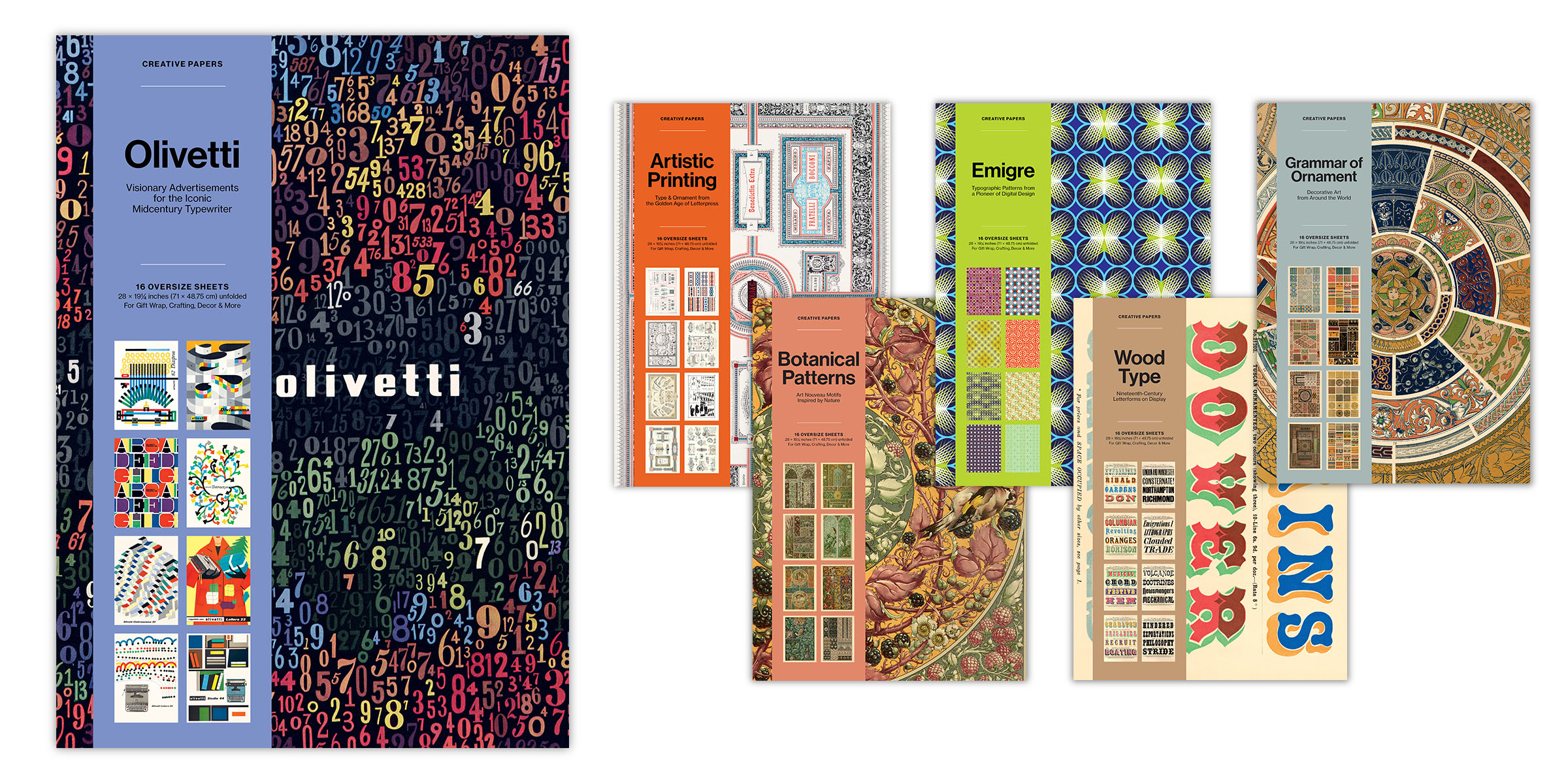
In the nineteenth century, technological innovations allowed for a creative flourishing in print, and letterpress practitioners produced extravagant materials to showcase their craft.
On view in Artistic Printing Creative Papers is a selection from two such dazzling promotions, issued by the famed Italian foundry Nebiolo. Their large-format pages entice with resplendent inks, wide-ranging typefaces, and charming ornaments, such as manicules, silhouettes, fleurons, and ornate borders.
With type rippling across ribbons, stacked in stately friezes, or clustered in decorative vignettes, the sixteen displays here—printed on oversize perforated pages—celebrate the bygone artistry of the industrial era.
Before the twentieth century, the printer and the graphic designer were one and the same: The tasks of type selection, typesetting, and the incorporation of illustrations (known as cuts or clichés) fell to the same individual who inked, ran, and maintained the presses. As commerce grew in the late 1800s, page composition diversified from the straight-forward—simple running text that conveyed the news in a daily or an author’s text in a book—to the marvelous, with glorious full color and dynamic and intricate typesetting. Today, these dazzling efforts, achieved using hand-set metal type and decorative ornaments, are known as artistic printing.
This creative upswell was all to attract the eye of the newly emergent consumer class, who was persuaded by clever print ephemera and advertisements. Sensing economic opportunity, a specialized group of letterpress operators, known as jobbing printers, rapidly expanded their offerings. They were emboldened by the innovations of the Industrial Revolution, such as the standardization of the typographic point system, which enabled greater integration of ornament and type in various sizes; type-casting machines that allowed for more delicate, fine-line designs; fast-drying inks; and the highspeed yet accurate jobbing platen press.
One manufacturer who helped printers access such technologies, and whose own promotional materials are on view in these pages, was Nebiolo of Turin, Italy. The company was established in 1878, when Giovanni Nebiolo acquired a small type foundry and used it as a foundation for what would become an ambitious manufacturer of printing presses (and, much later, the most important Italian type foundry of the twentieth century). From volumes printed in 1887 and 1895, the selections here provide a glimpse at the nascent manufacturer’s marketing efforts as it sought footing in an industry dominated by Germany, France, and the United Kingdom, as well as a newly competitive United States.
Interspersed between single pages of waterfall layouts, several full spreads spare no expense to communicate the wide-ranging utility of Nebiolo’s offerings, carefully tailored to the needs and tastes of the time. Sheets 1 and 5, for instance, feature sample menus, concert programs, invitations, price lists, business cards, banknotes, and invoices—all the provenance of the jobbing printer—laid out in life-size trims in an overlapping style. Others suggest jovial and jaunty vignettes for businesses, elevated by subtle gradients and delicate filigree (see sheets 2, 4, and 7). Others still, called monuments, resemble architecture, with dense borders of ornamental type and illustrative clichés arranged into imposing columns and friezes (sheet 11). Responding to the commercial industry’s desire for affordable artwork, one volume’s creators also included a sheet of whimsical silhouettes, presenting children, plants, and animals in crisp, charming line work (sheet 3). And, leaving no corner of the market unconsidered, a few especially handsome spreads feature large and graphic ornaments printed in contrasting hues (sheets 14–15). Several pages on view here also appeared in Nebiolo’s trade journal, Archivio Tipografico, a chronicle of industry news and a source of further publicity started by foreman Dalmazzo Gianolio (1863–1926) in 1889.
Sadly, the letterforms within these specimens do not presage Nebiolo’s later influence on type design, as most Italian foundries at this time imported or copied matrices of popular German and French faces, as seen in a handful of art nouveau–inspired script styles, or brought in type from as far afield as the United States, as was the case with several flamboyant faces advertised here (see sheets 2, 7, and 16). It was thirty years later, after consolidating many foundries across Italy in the early 1900s, that Nebiolo earned its legacy with original typefaces designed by its in-house creative team, Studio Artistico.